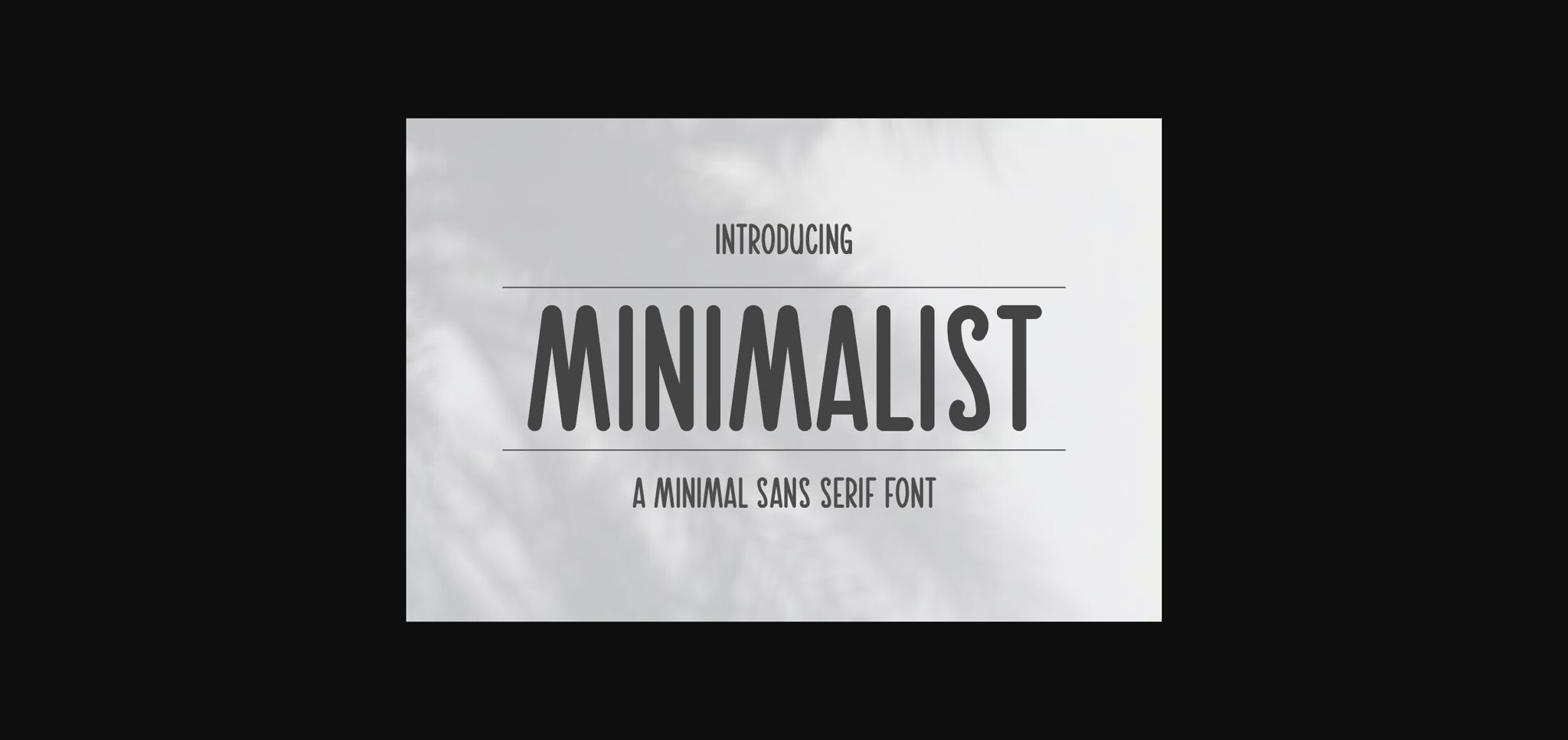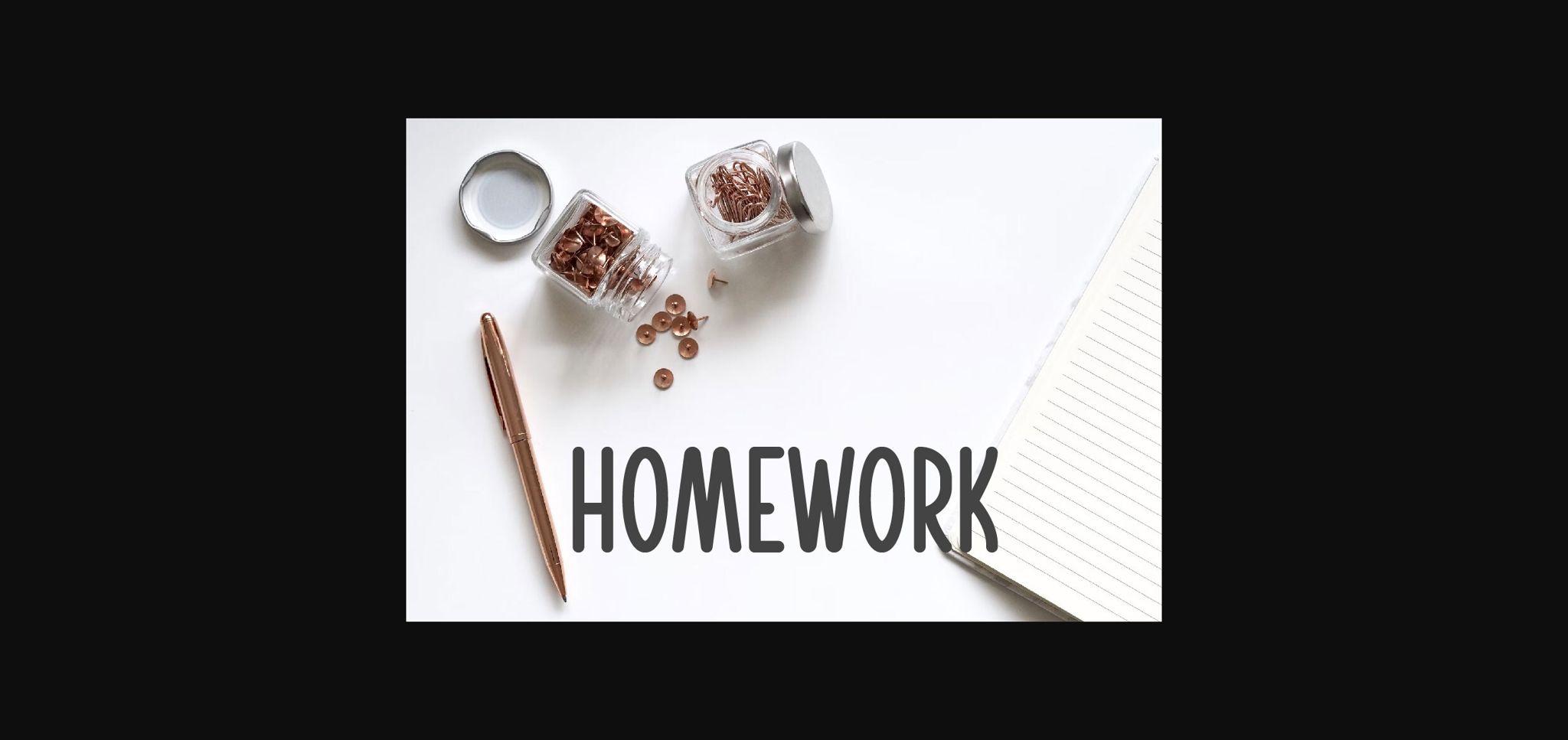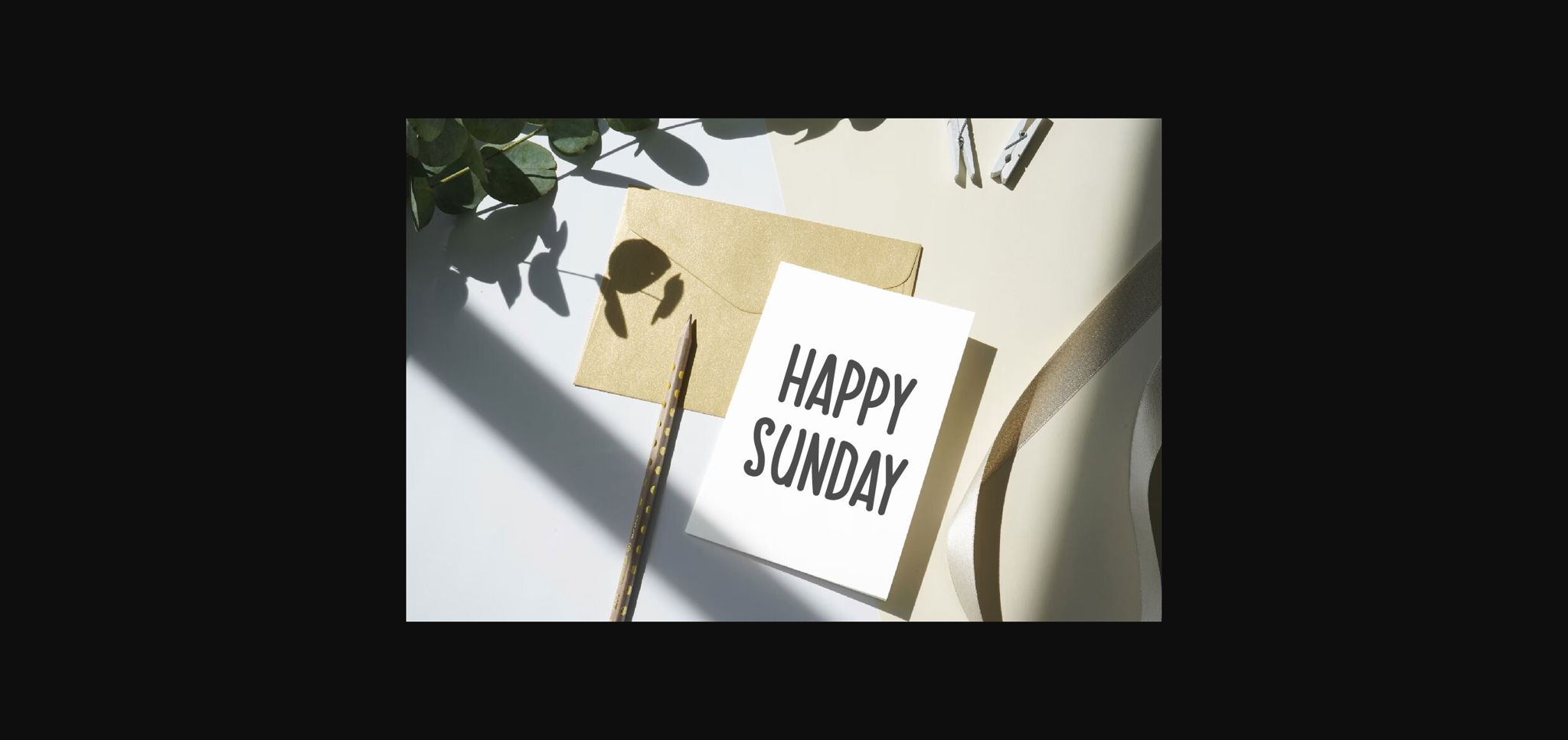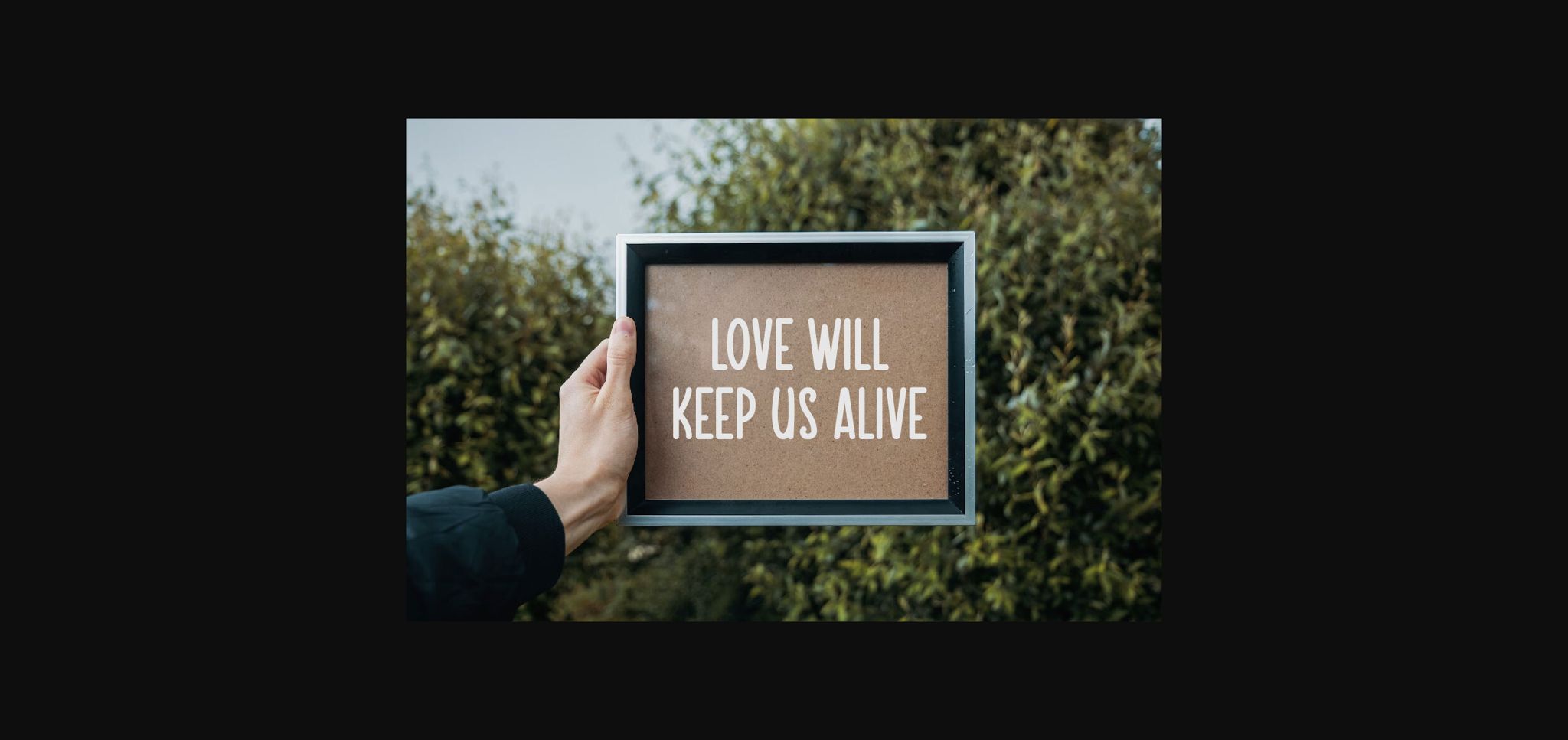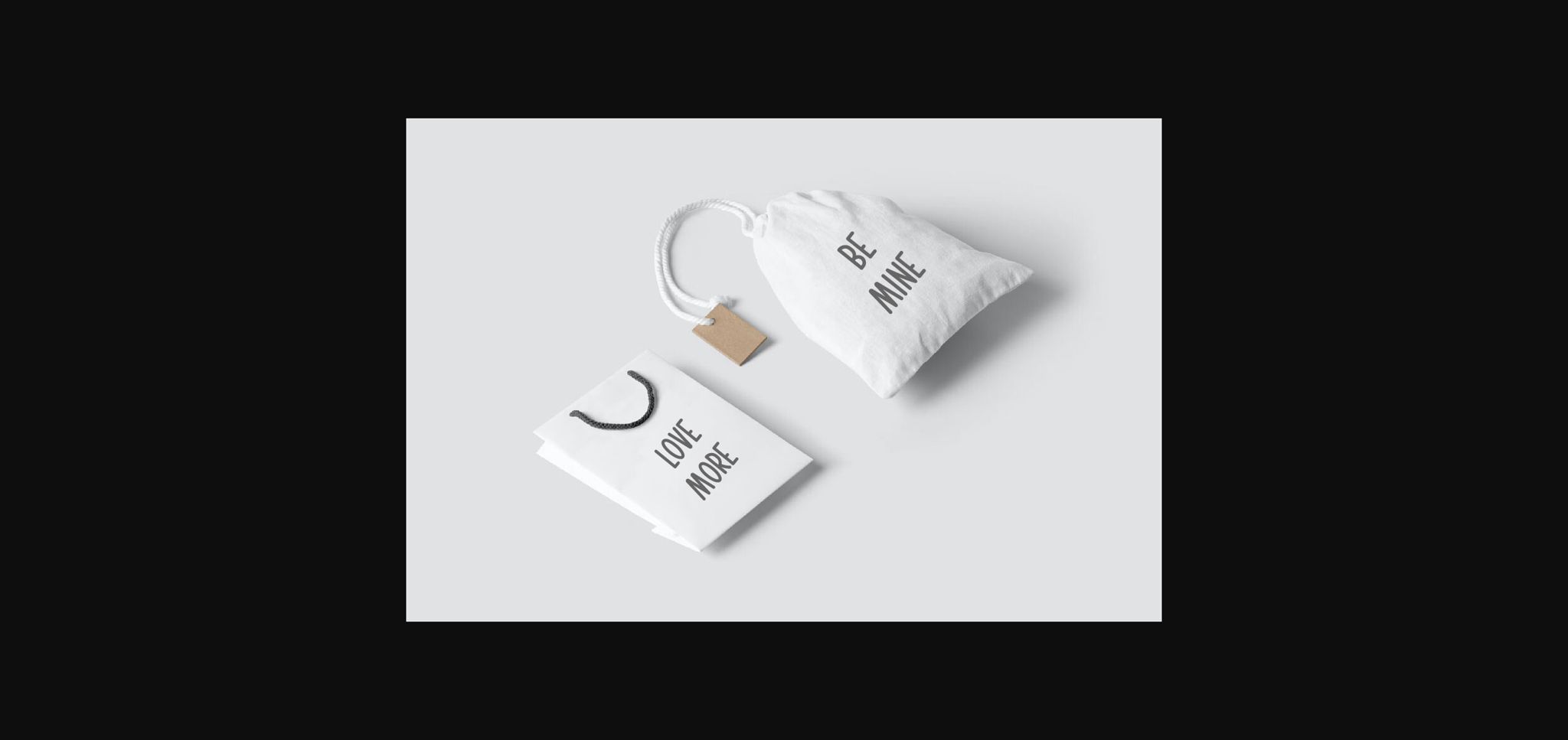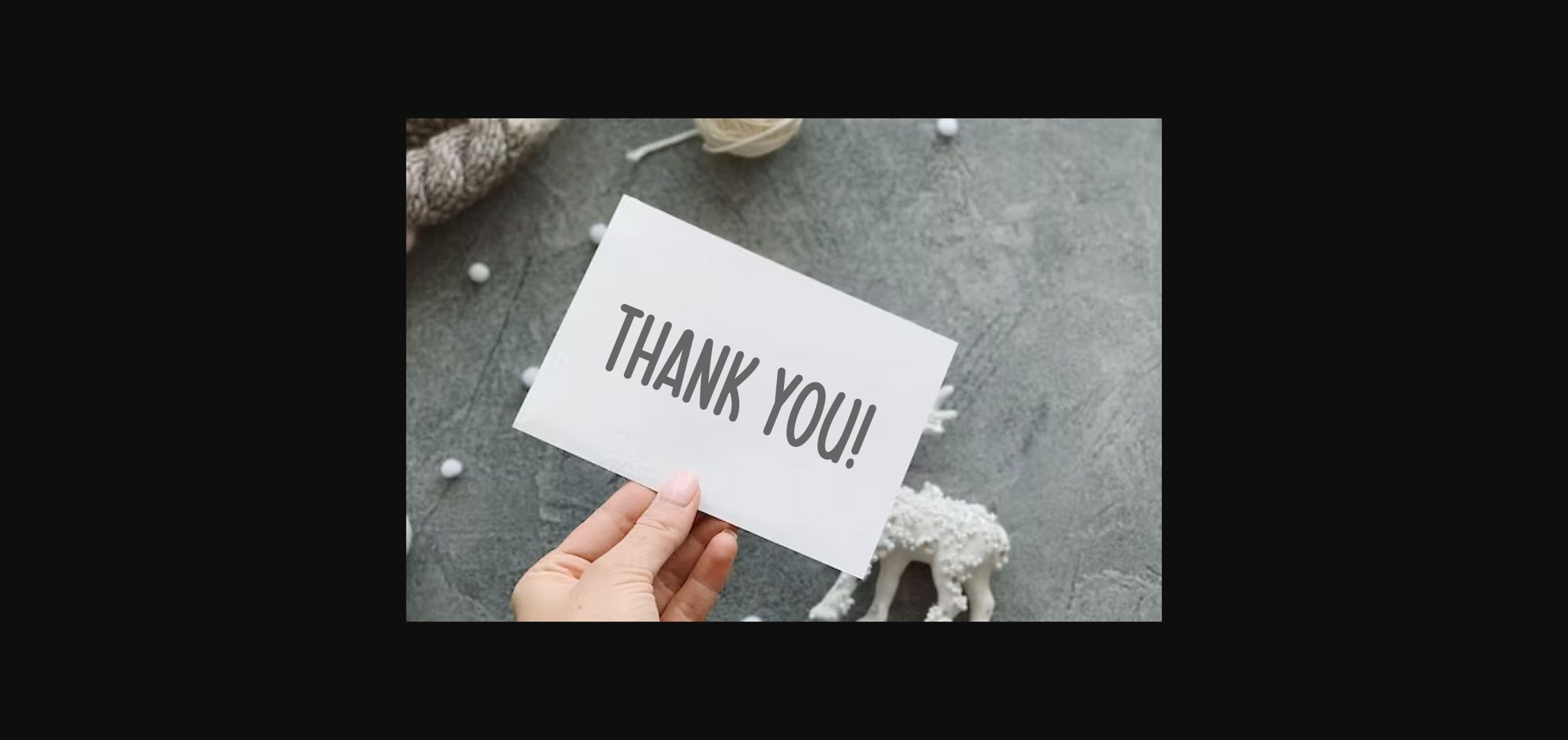
Minimalist is a simple sans serif font, perfect for greeting cards, wedding, gift labels, mugs, t-shirts, quotes, label, etc. Use it to create spectacular and interesting designs!